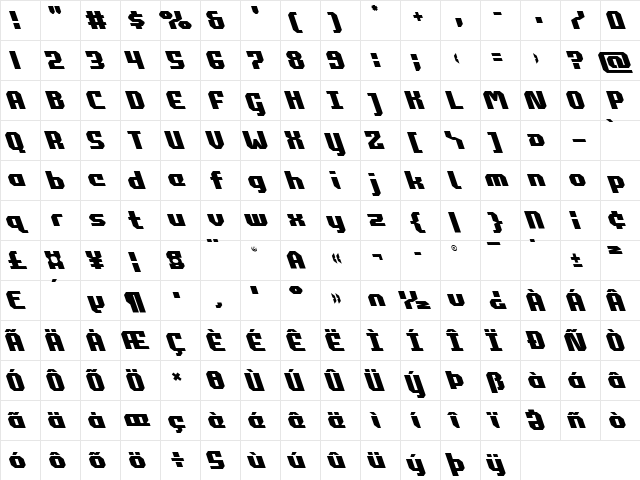
Commonwealth Leftalic Italic
Design Context for Commonwealth Leftalic Typeface
Commonwealth Leftalic takes a measured approach to typography — its balanced proportions and neutral character make it a reliable workhorse for both digital and print work. Its italic angle brings a sense of urgency and motion to the letterforms.
Pro Tip: Try Commonwealth Leftalic for annotation and caption copy alongside an upright companion — the contrast in angle creates a dynamic but ordered typographic system.